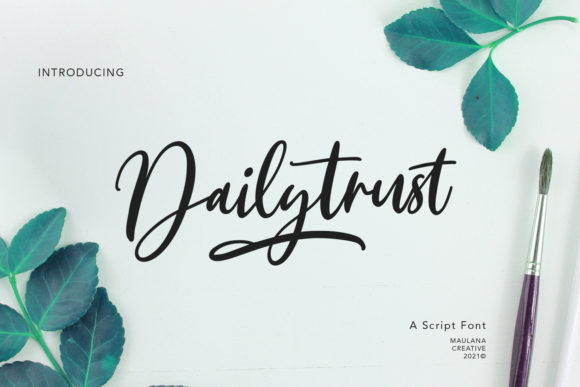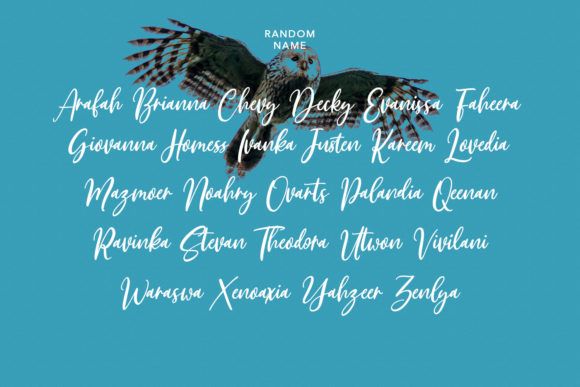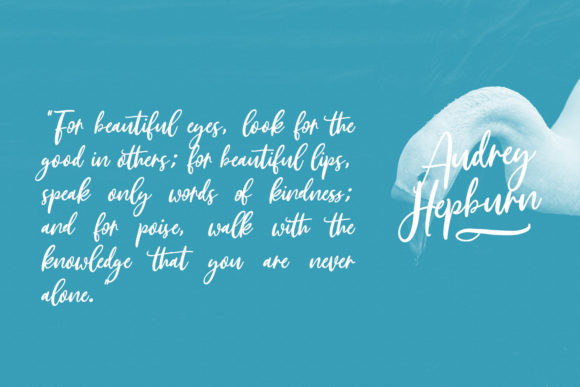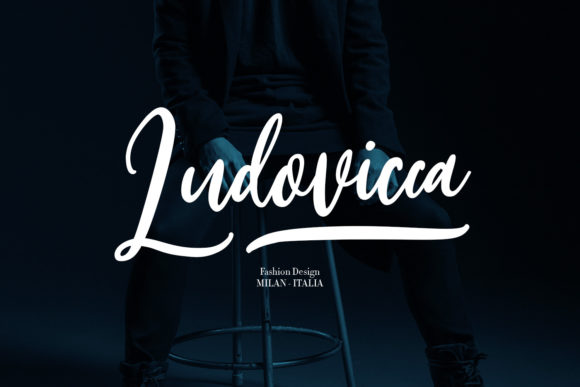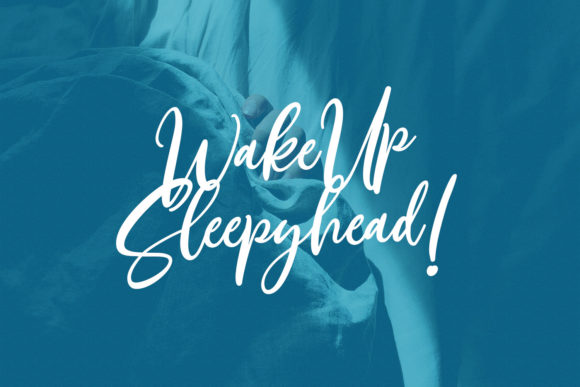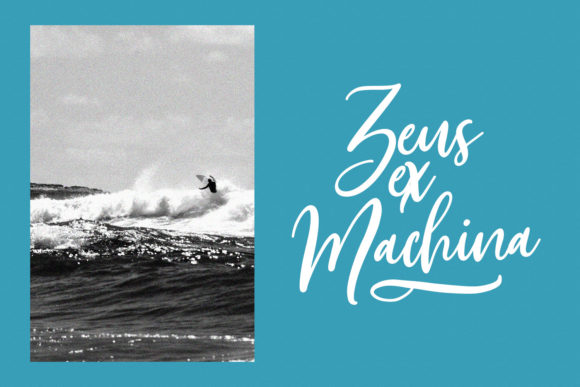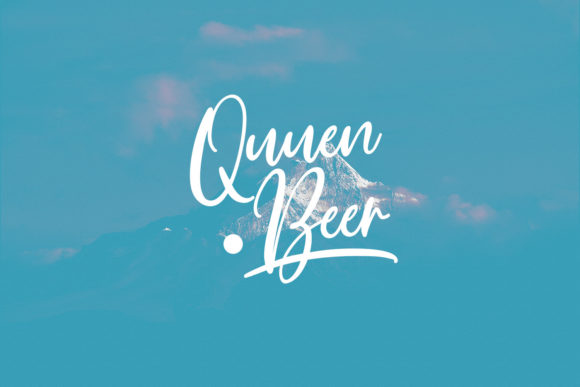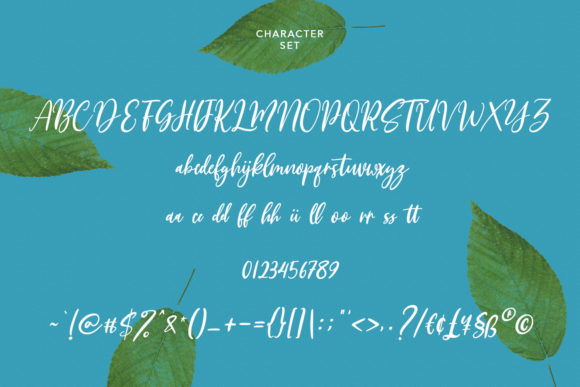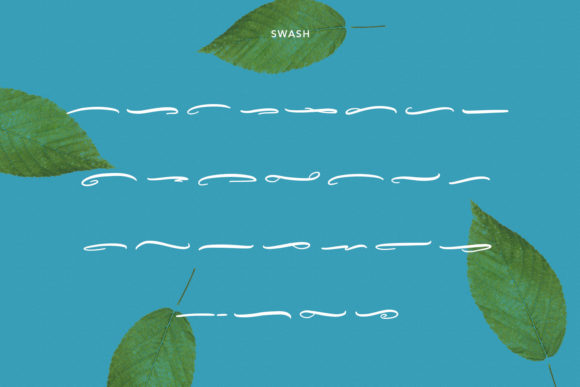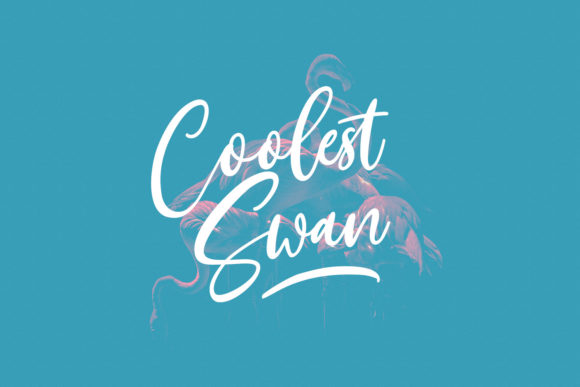
Dailytrust Script Font
About Dailytrust Script Font
Dailytrust Script is a truly remarkable handwritten font that exudes uniqueness and elegance. Its carefully crafted characters and flowing strokes make it a perfect choice for a wide range of design projects that require a personalized and sophisticated style.
The beauty of Dailytrust Script lies in its distinct and intricate letterforms. Each character has been meticulously designed with attention to detail, resulting in a font that stands out and captures attention. The flowing nature of the strokes adds a sense of grace and fluidity to the text, making it visually appealing and pleasing to the eye.
With its versatile style, Dailytrust Script can be used in various design applications. It works exceptionally well for wedding invitations, where it adds a touch of elegance and romance. The font’s unique and personalized look also makes it suitable for thank you cards, greeting cards, and other stationery items, allowing you to create memorable and heartfelt messages.
Furthermore, Dailytrust Script lends itself beautifully to logo designs, adding a sophisticated and personalized touch to your brand identity. Its elegant curves and flowing lines create a sense of professionalism and refinement, making your logo stand out from the crowd.
Whether you’re working on wedding designs, branding projects, or any other creative endeavor, Dailytrust Script will elevate your designs with its unique and elegant style. Its versatility and ability to evoke a personalized feel make it a valuable asset in your font library.
In summary, Dailytrust Script is a unique and elegant handwritten font that adds a touch of sophistication to any design project. Its meticulously crafted characters and flowing strokes make it ideal for wedding invitations, thank you cards, greeting cards, logos, and more. Embrace the beauty and versatility of Dailytrust Script to create stunning and memorable designs.